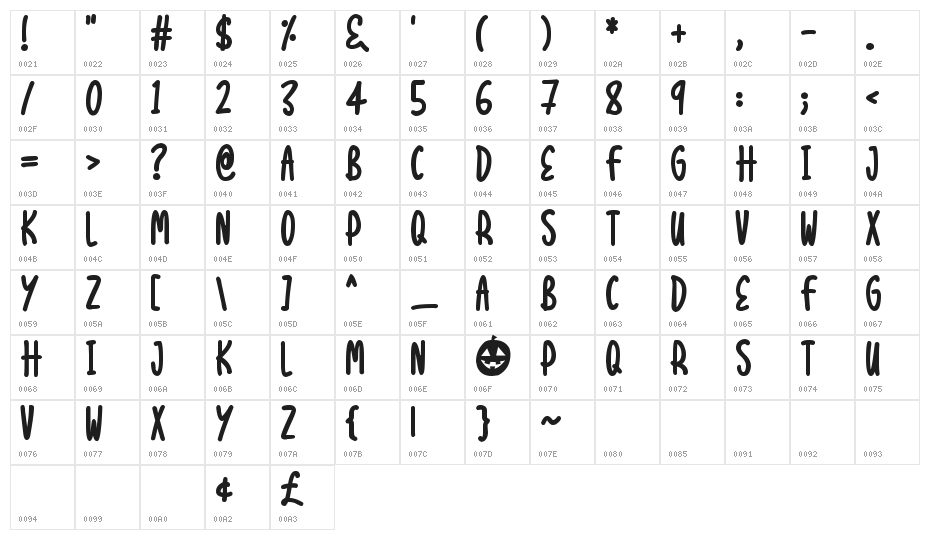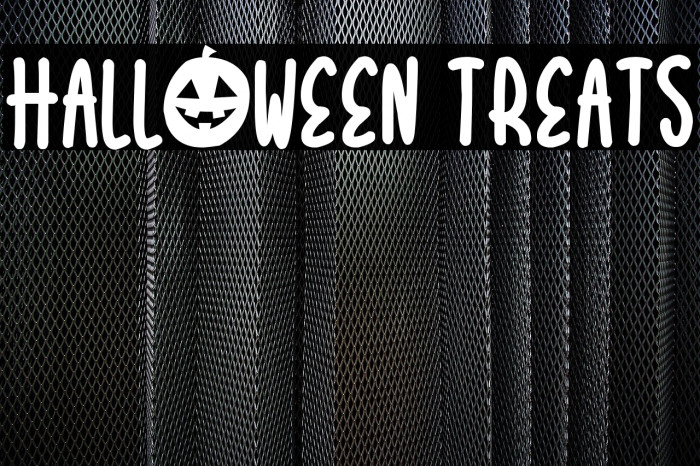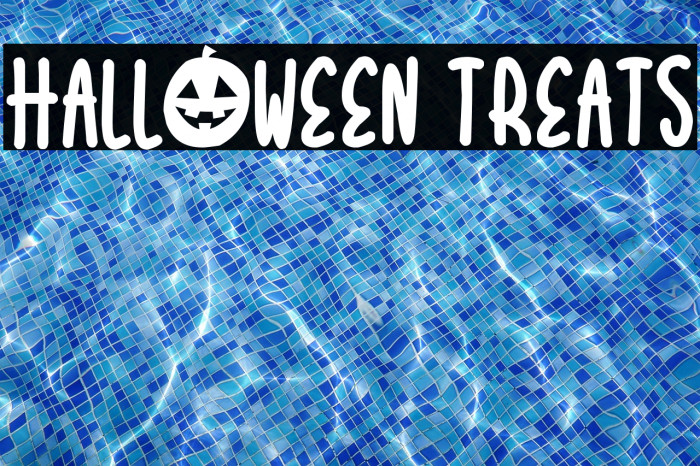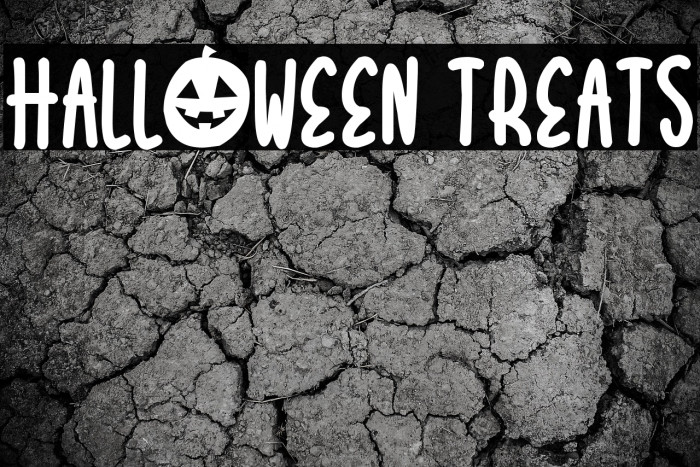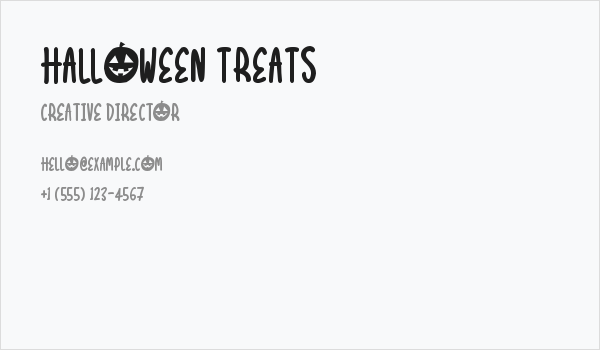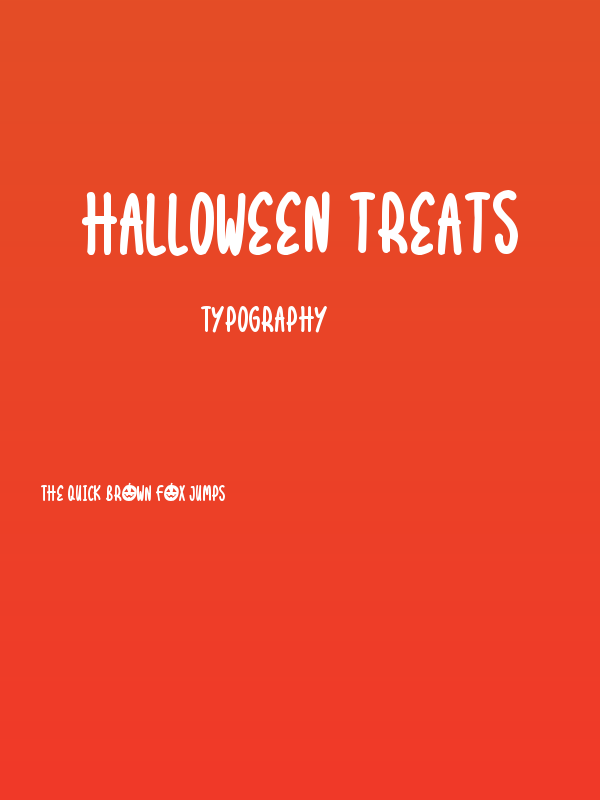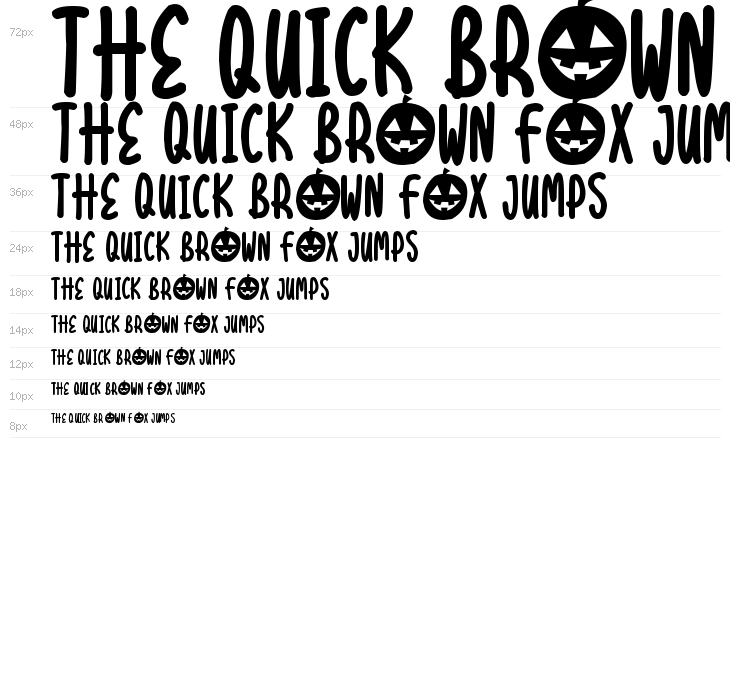
Halloween Treats Font
Halloween Treats Description
This playful and bold font features a handwritten style with a quirky and energetic vibe. The letters are slightly irregular, adding a whimsical touch that is perfect for festive and fun designs. The uppercase and lowercase characters maintain a consistent style, with rounded edges and a slightly condensed form. The numbers and special characters follow the same playful aesthetic, making it versatile for various creative projects. The font's unique character is highlighted by the inclusion of a pumpkin-themed letter, adding a seasonal flair ideal for Halloween-themed designs.
Proposed ProjectsIdeal for Halloween-themed invitations, posters, party decorations, and children's book covers.